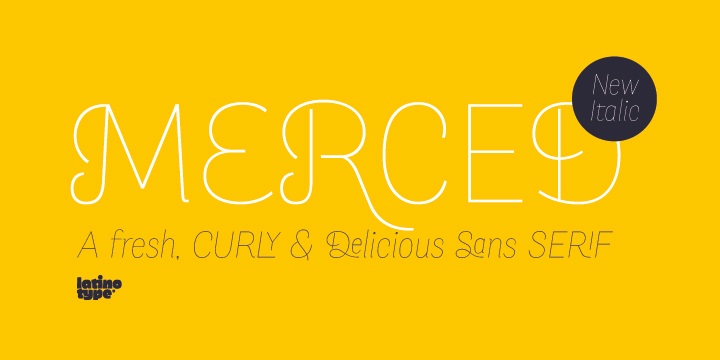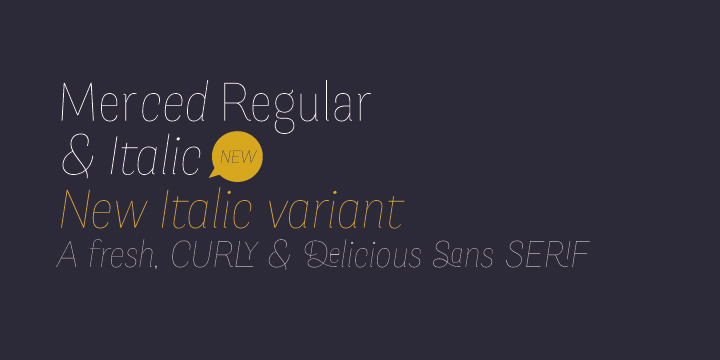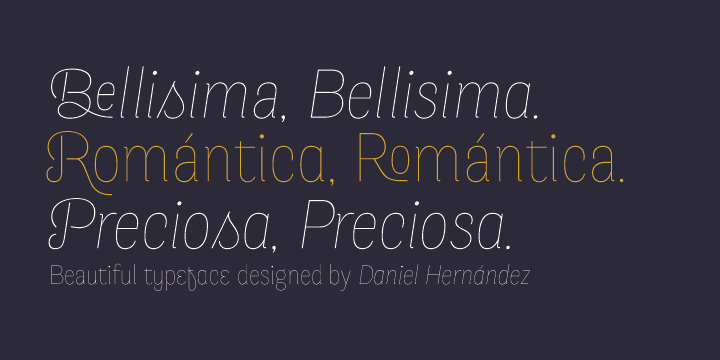
Merced is a display sans font family. This typeface has two styles and was published by Latinotype.
Designed by Daniel Hernandez, Merced is a sans serif font that can be given different uses for its wide variety of alternate types .Its main virtue is the endless number of possibilities that the font gives to write a word, text or paragraph.